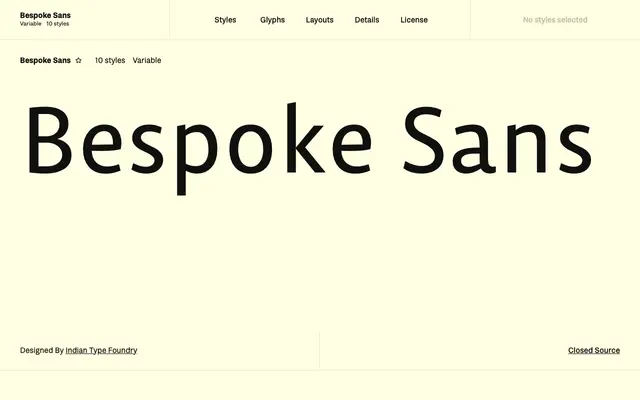
Bespoke Sans
A humanist sans from Indian Type Foundry with open counterforms, diagonal stroke-endings and oldstyle figures across five weights with matching italics.
Designed by Indian Type Foundry, Bespoke Sans draws on broad-pen calligraphic tradition through its diagonal sheared ascender terminals, which run consistently through the design. The upright styles use double-storied 'a' and 'g', switching to single-storied forms in the italics, and proportionally-spaced oldstyle figures sit comfortably alongside lowercase text. Ten static styles span Light to Extrabold with italics throughout, plus variable font support, making it adaptable for branding, editorial, corporate communication and wayfinding.
Classified by Fontshare as Sans; the page describes it explicitly as a humanist sans serif with open counterforms, diagonal stroke-endings referencing broad-pen calligraphy, and double-storied 'a' and 'g' — all hallmarks of the humanist sans tradition.